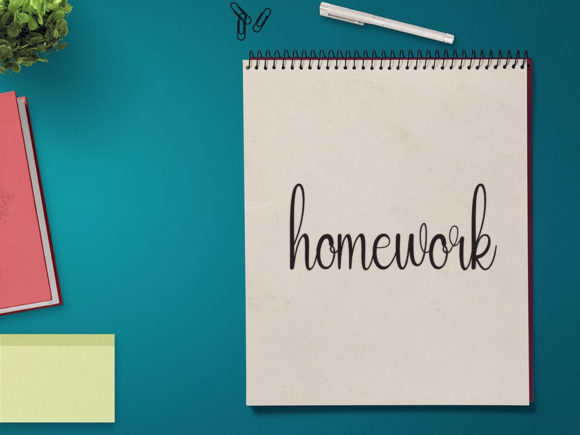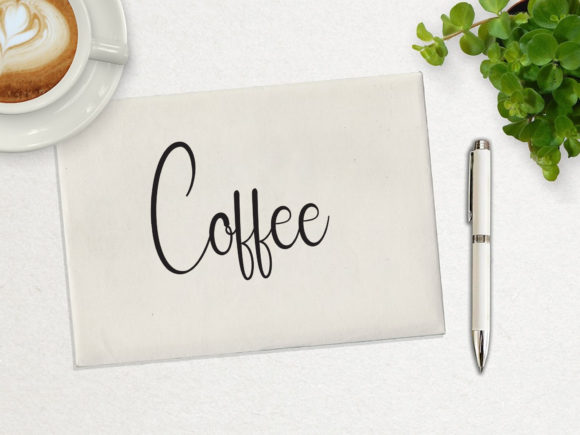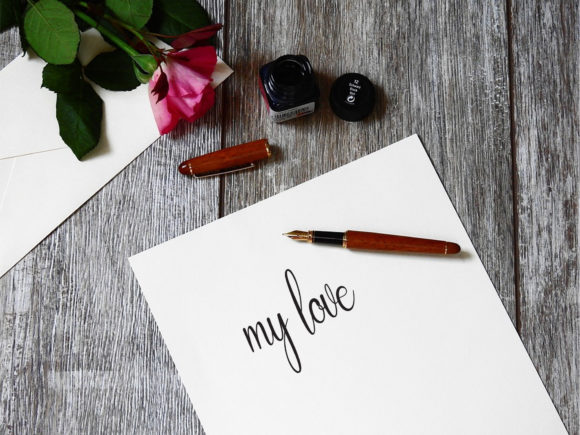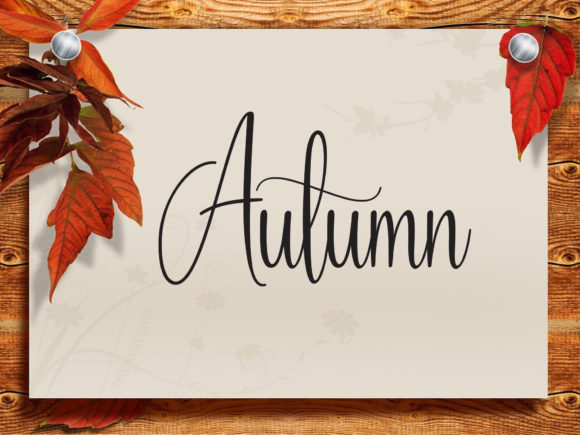
About Sandwich Font
Sandwich is a thin lettered and delicate handwritten font that is made with great care in order to produce the expected outcomes. It is ideal for wall displays, wedding invitations, social media post logos, advertisements, product packaging, product designs, labels, photography, watermarks, invitations, stationery, and any project that requires a gorgeous vibe.